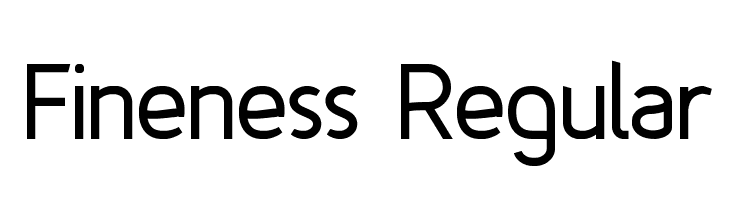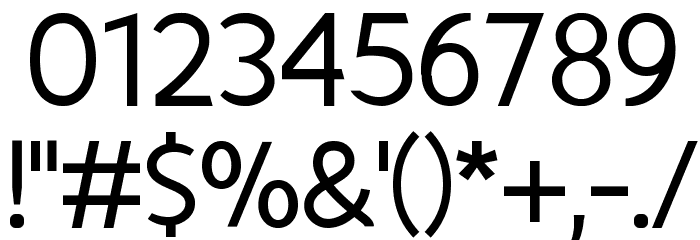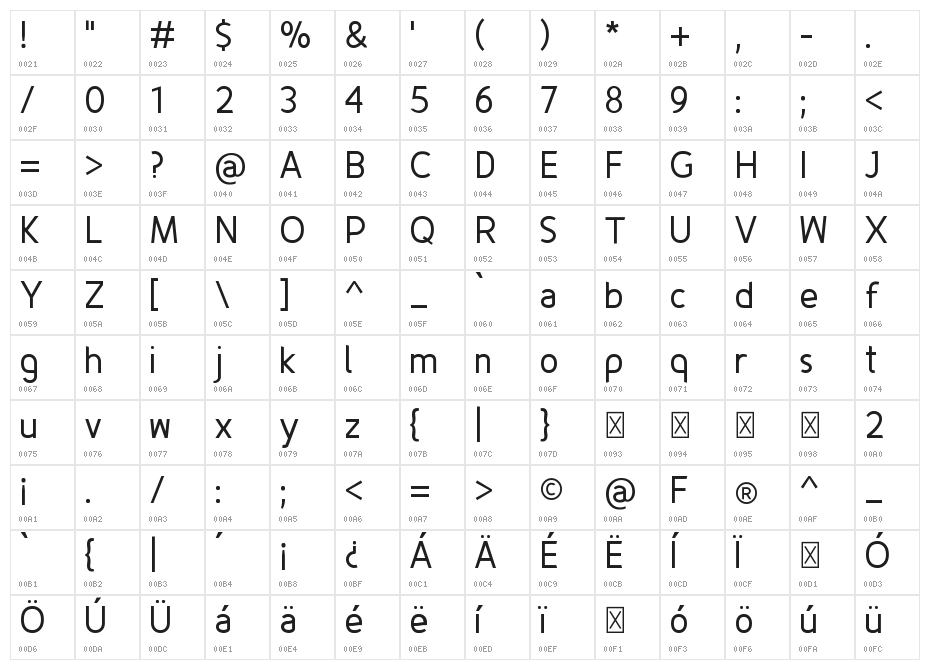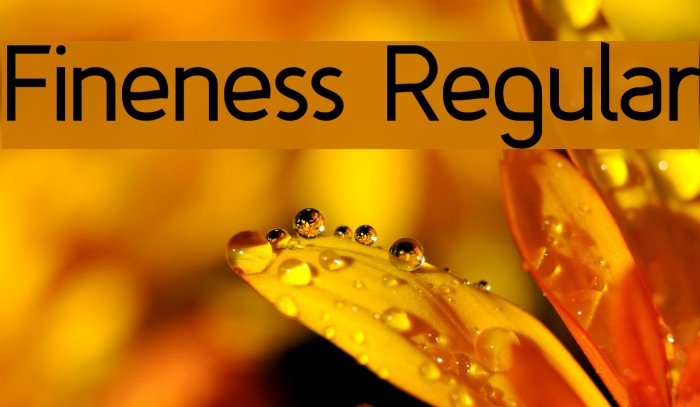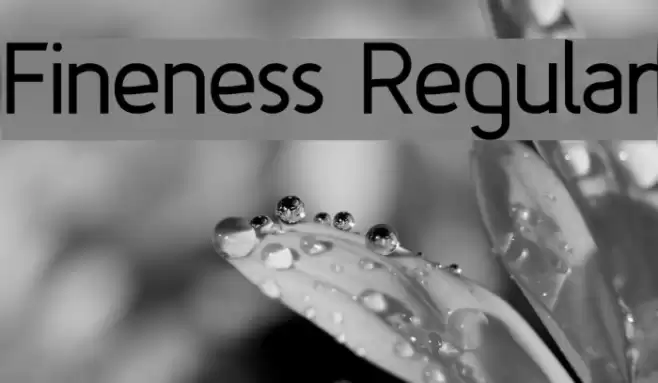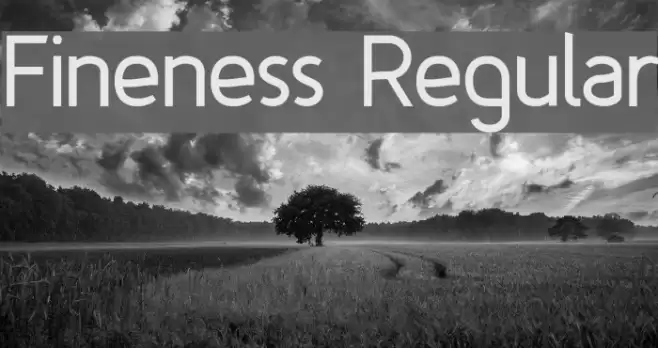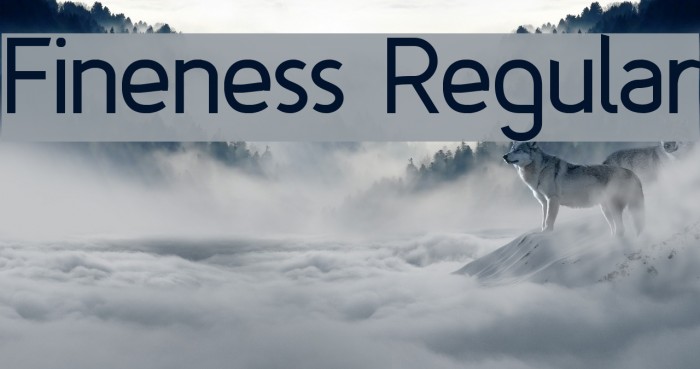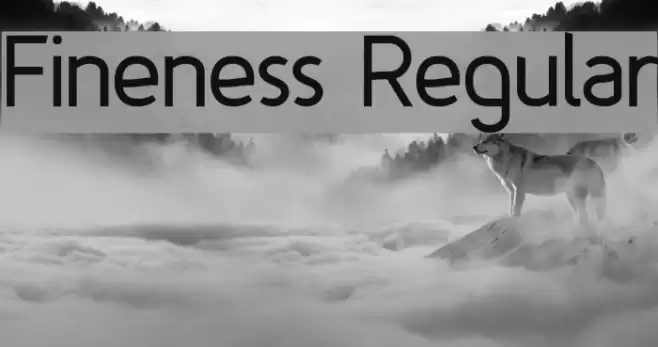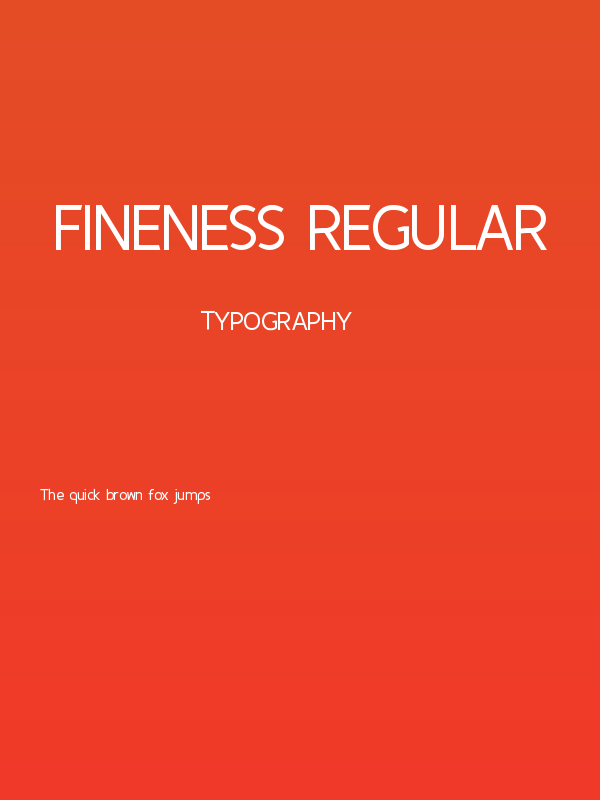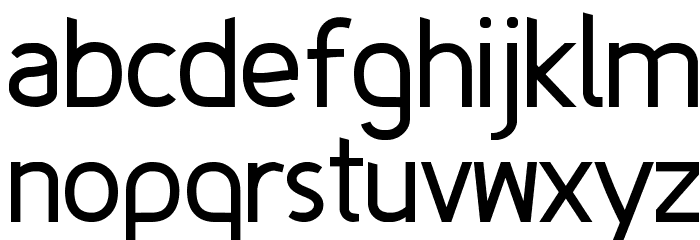
Fineness Regular Font
Fineness Regular Description
This font features a clean and modern sans-serif design with uniform stroke widths, giving it a sleek and contemporary appearance. The characters are well-proportioned, with a slightly condensed structure that maintains readability while maximizing space efficiency. The uppercase letters are bold and assertive, while the lowercase letters offer a softer, more approachable feel. The numerals are clear and distinct, making them ideal for both digital and print applications. Special characters are well-integrated, ensuring versatility across various contexts.
| Proposed Projects | Ideal for branding, web design, corporate materials, and editorial layouts due to its clarity and modern appeal. |